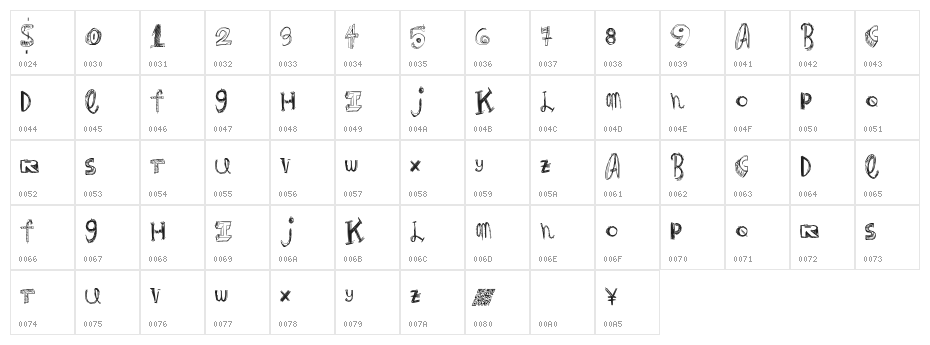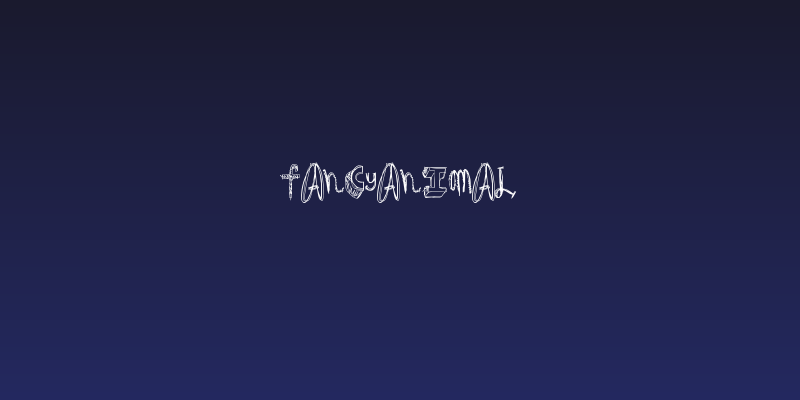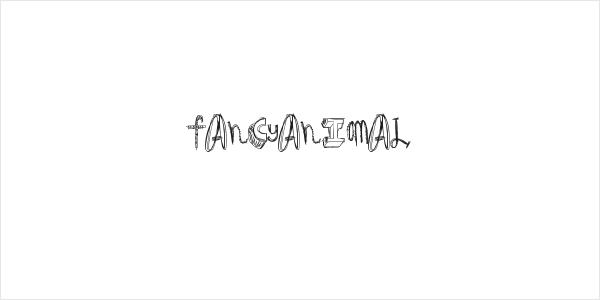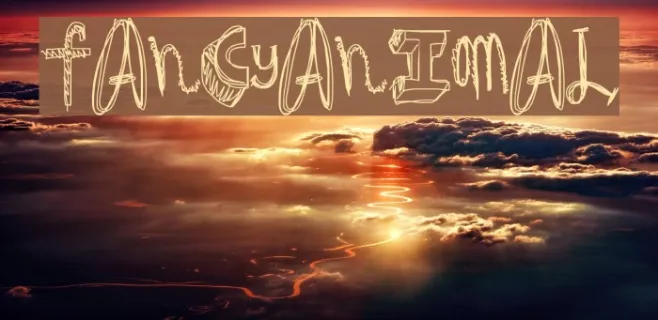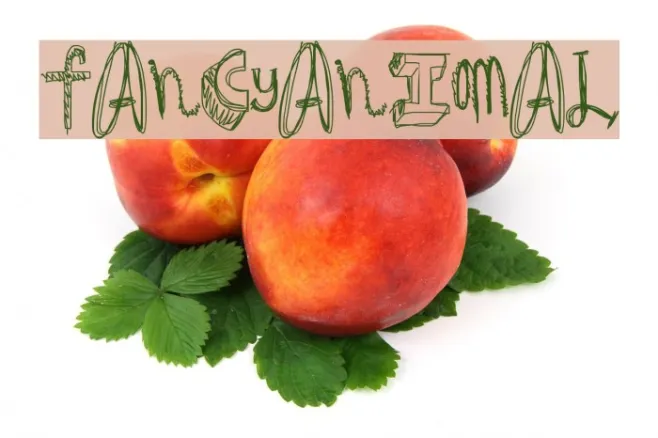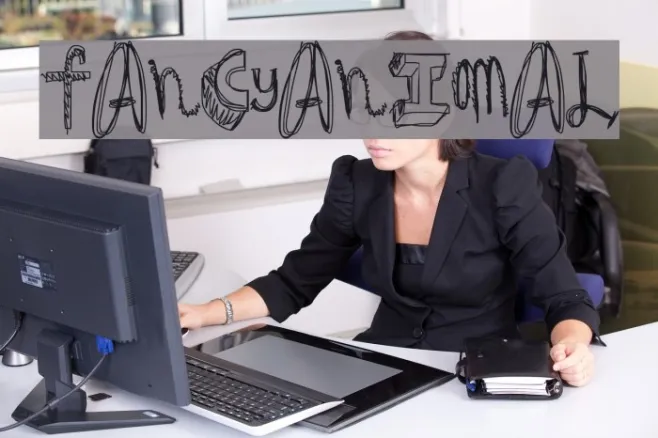
FancyAnimal Font
FancyAnimal Description
This font features a playful and whimsical design, characterized by its hand-drawn, sketch-like appearance. Each character is uniquely crafted with varying line thicknesses and decorative elements, giving it a dynamic and artistic feel. The uppercase and lowercase letters, as well as numbers and special characters, maintain a consistent style that is both quirky and visually engaging. The font's irregular shapes and creative flair make it stand out, perfect for projects that require a touch of fun and creativity.
| Proposed Projects | Ideal for children's books, creative posters, playful branding, and artistic invitations. |